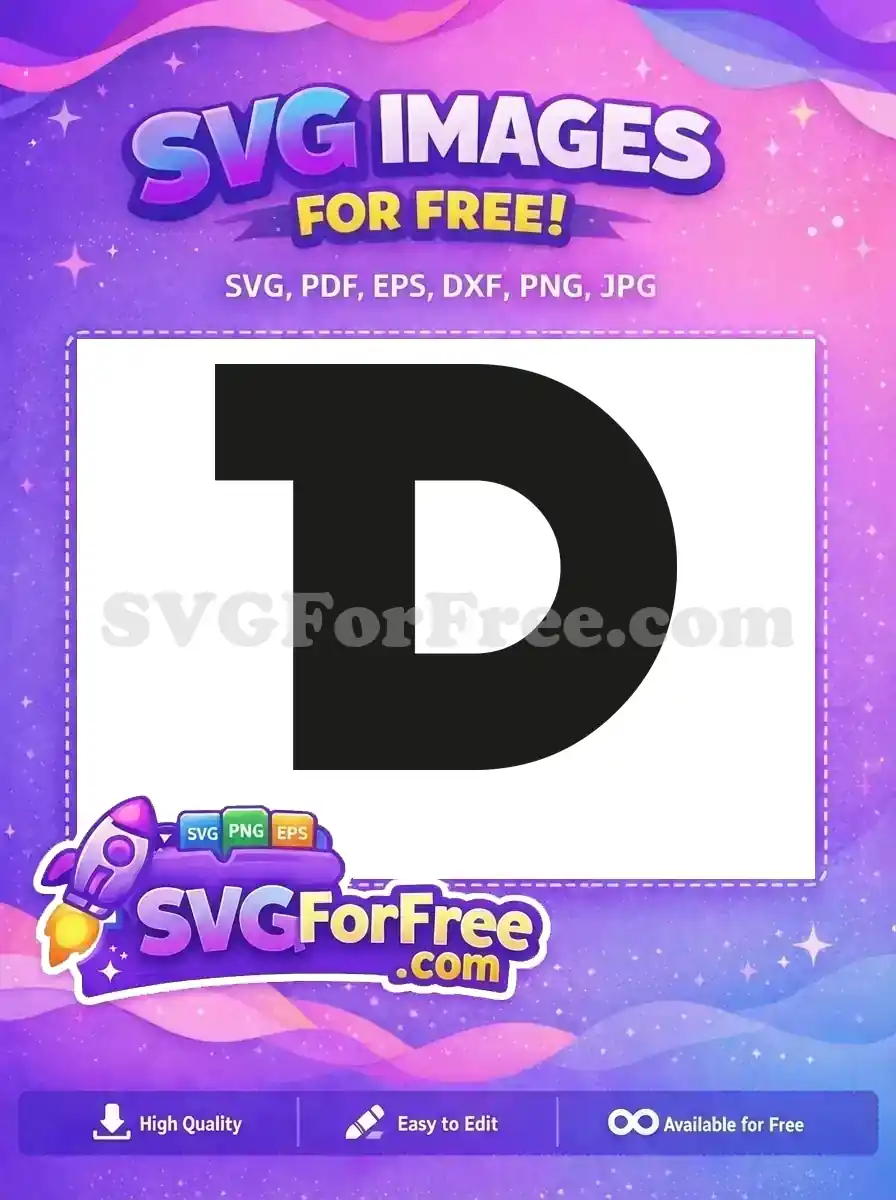
Free Minnie Font Letter D Free Black Bold Free SVG – Instant Download
Solid black block letter D, simple and bold, available as a free vector file.
Free Minnie Font Letter D Free Black Bold Free SVG